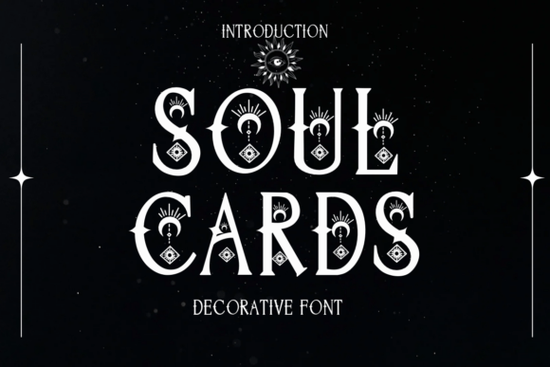
If you’ve been searching for a font that brings a touch of the mystical to your designs, Soul Cards Font might be exactly what you need. Inspired by tarot symbolism, celestial patterns, and sacred geometry, this decorative display typeface blends ornate uppercase letters with graceful lowercase forms to create something truly atmospheric. Whether you're designing a fantasy book cover, crafting custom tarot cards, or creating invitations for a themed event, Soul Cards adds depth and intrigue without overwhelming your layout.
What sets Soul Cards apart is how each character feels intentional almost like a talisman. The sharp serifs are balanced with delicate flourishes, and the included celestial ornaments let you weave visual magic into headlines, logos, or packaging. It’s especially well-suited for projects rooted in gothic, esoteric, or fantasy aesthetics, where typography isn’t just readable it’s part of the storytelling.
Who is Soul Cards Font best for?
This font shines in the hands of:
- Print-on-demand sellers creating mystical-themed apparel, mugs, or wall art
- Indie authors and publishers working on fantasy novels, poetry collections, or occult guides
- Graphic designers building brand identities for wellness studios, metaphysical shops, or event planners
- Crafters and hobbyists making handmade journals, oracle decks, or ritual kits
Because it’s a display font, Soul Cards works best at larger sizes think titles, headers, or short phrases. It’s not meant for body text, but that’s where its strength lies: making a strong first impression.
How does it compare to other decorative fonts?
If you’ve explored Creative Fabrica’s decorative font collection, you might already know options like Luna, which leans into soft, dreamy curves, or the boho-inspired Hippie Flower. Soul Cards takes a different path it’s more structured, with sharper lines and symbolic detailing that echoes vintage tarot decks.
For contrast, consider Negative Space Army Stencil, which uses bold, industrial shapes, or the playful Dog Life font designed for pet-themed projects. And if you’re looking for something with tracing versatility, ABCD Ref Dashed Dotted offers layered styles ideal for educational or kids’ crafts. Each serves a distinct mood Soul Cards fills the niche for elegant mysticism.
Practical uses beyond the obvious
While tarot decks and spellbook covers are natural fits, don’t overlook other creative applications:
- Product packaging for candles, crystals, or herbal teas
- Social media graphics for astrology or moon-phase content creators
- Event signage for solstice gatherings, witchy markets, or fantasy conventions
- Editorial headlines in zines or digital magazines focused on spirituality or alternative culture
The included ornaments stars, moons, and arcane glyphs can be used as standalone design elements or integrated into borders and dividers, giving you extra flexibility without needing additional assets.
When pairing Soul Cards with other typefaces, opt for clean, minimalist sans-serifs (like Montserrat or Lato) to let its details breathe. Avoid overly decorative companions that might compete visually.
- Test readability: Try mockups at your intended size some intricate details may blur at small scales.
- Consider color and texture: Gold foil, deep indigo, or parchment backgrounds enhance its mystical vibe.
- Pair thoughtfully: Use a simple secondary font for supporting text to maintain hierarchy.
If your project calls for typography that doesn’t just say something but feels like something Soul Cards offers a beautifully crafted bridge between letterform and symbol. It’s not just a font; it’s a design element with intention.